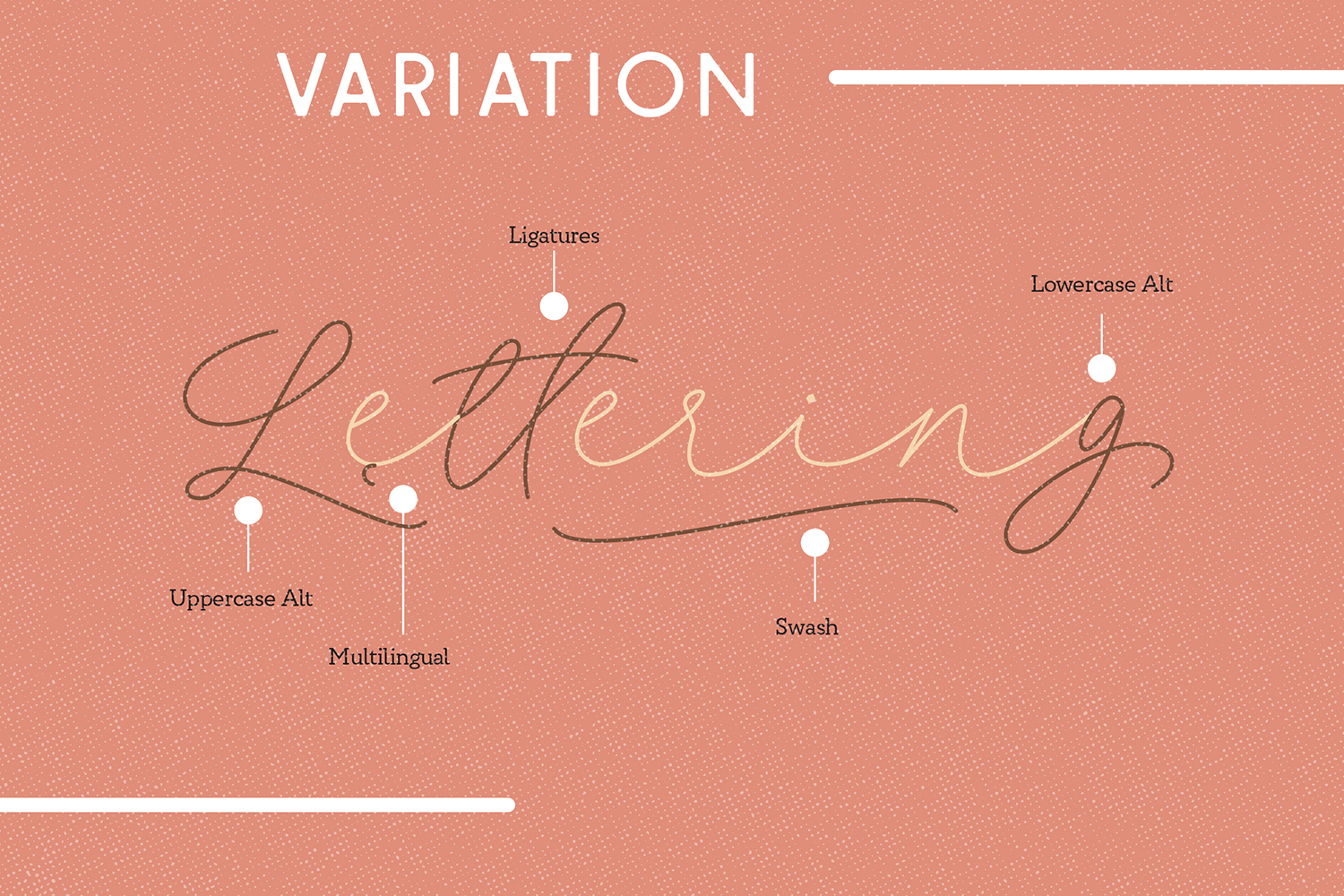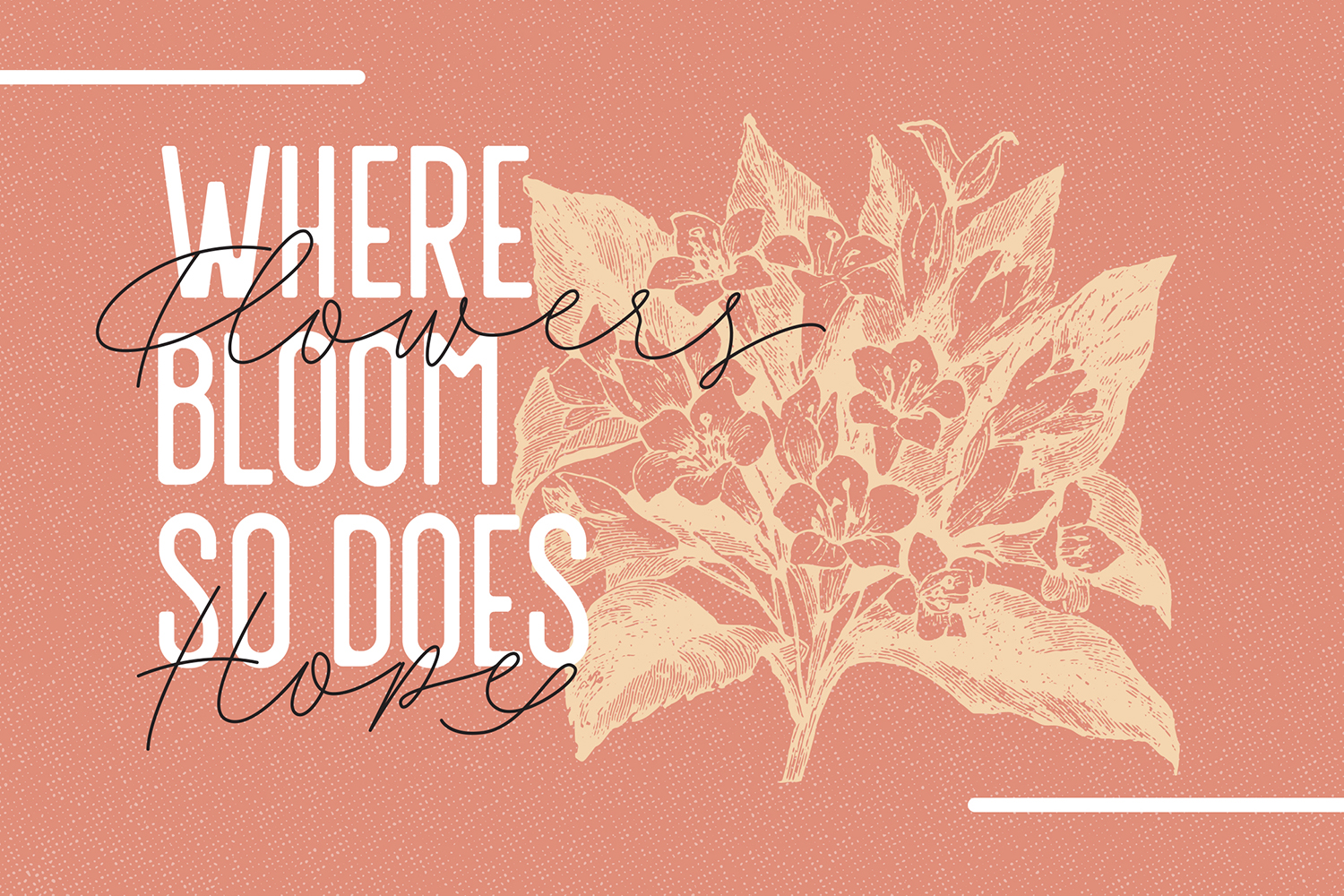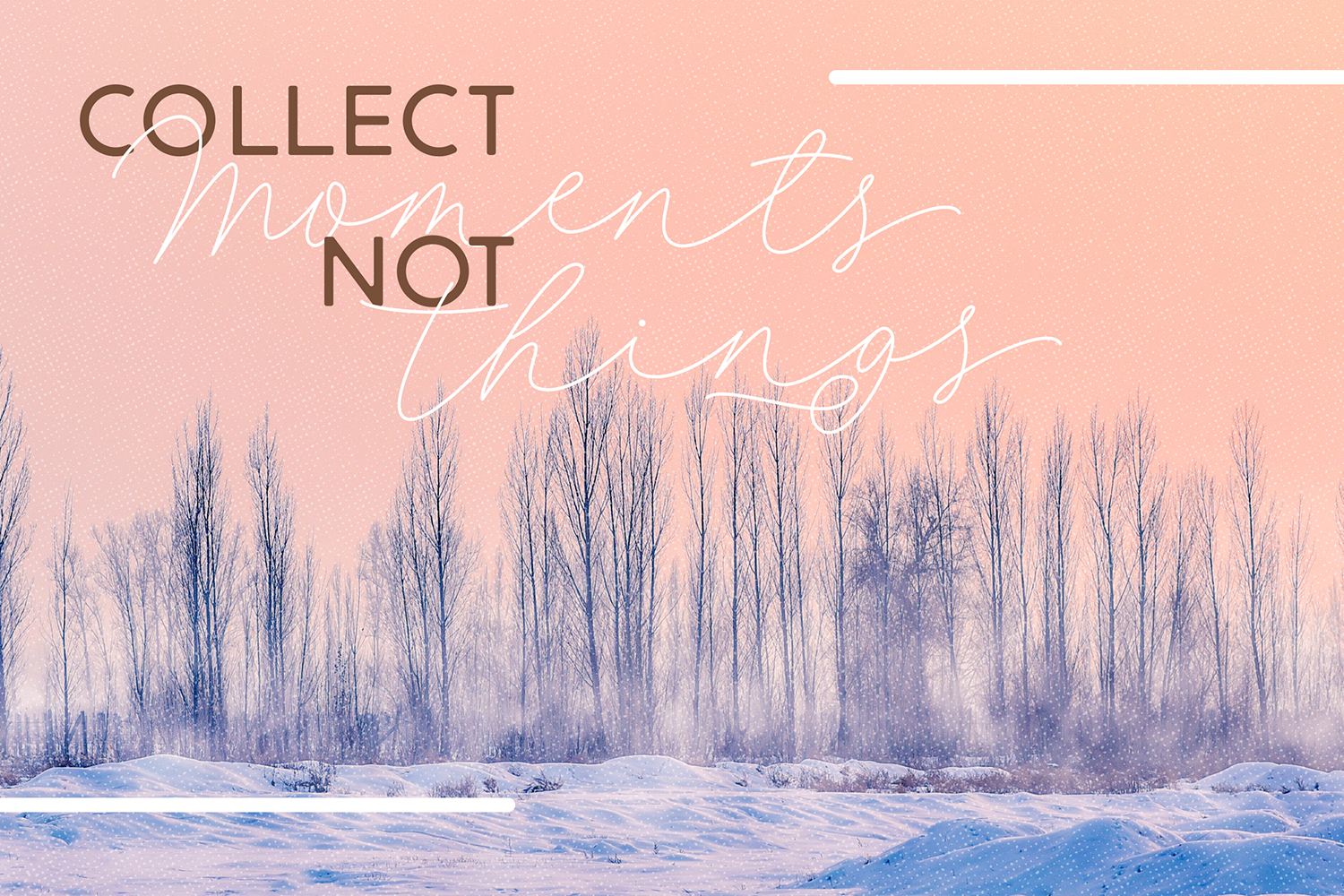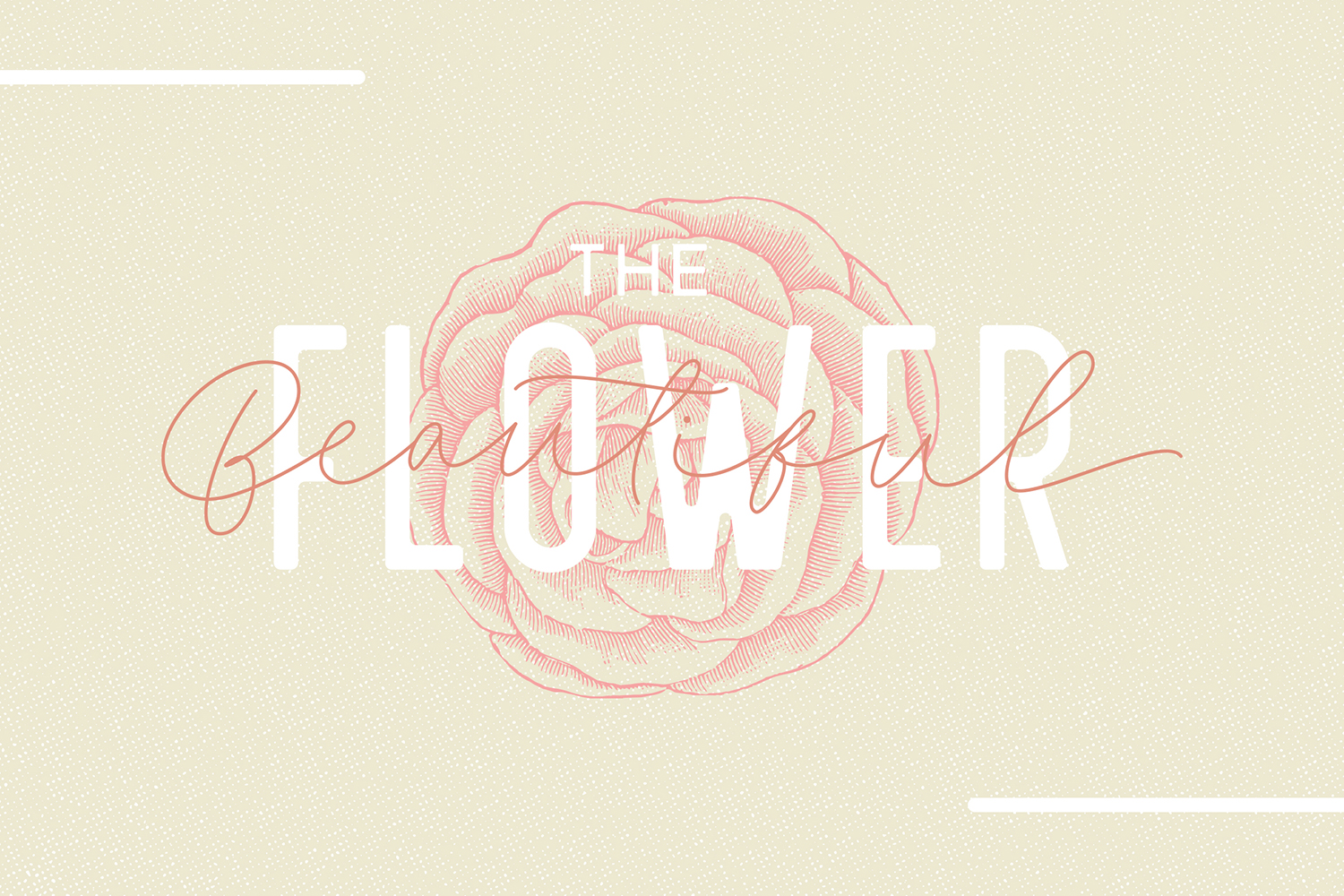
Filia Free Font
Filia Free Font comes with uppercase, lowercase, numerals, punctuations and so many variations on each character include OpenType alternates, common ligatures, and also additional swash to let you customize your designs. Perfect to use for Logotype, Letterhead, Poster, Apparel Design, Label and etc. This free typeface was designed by talented Inspiratype Studio. If you like it don’t forget to check out the full version.